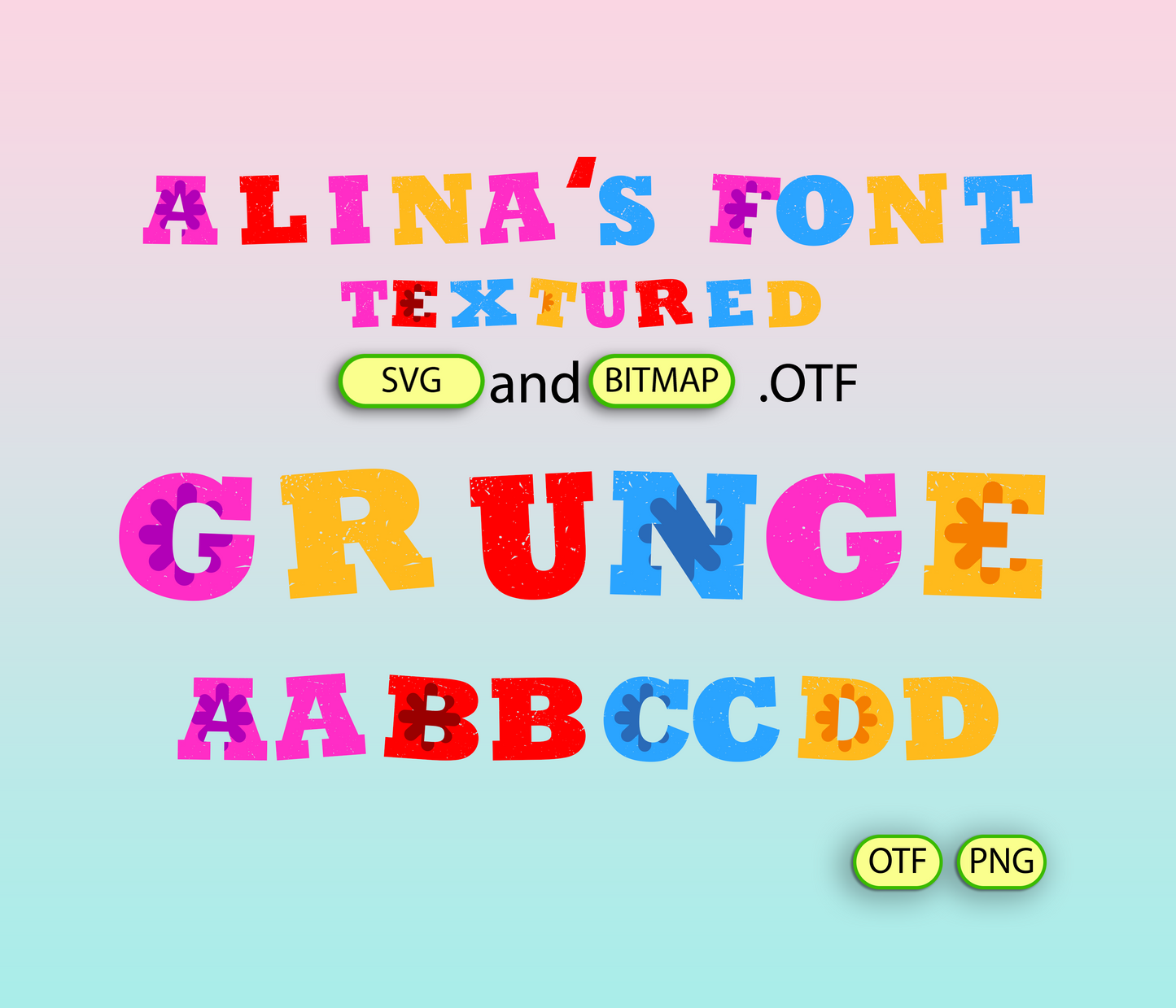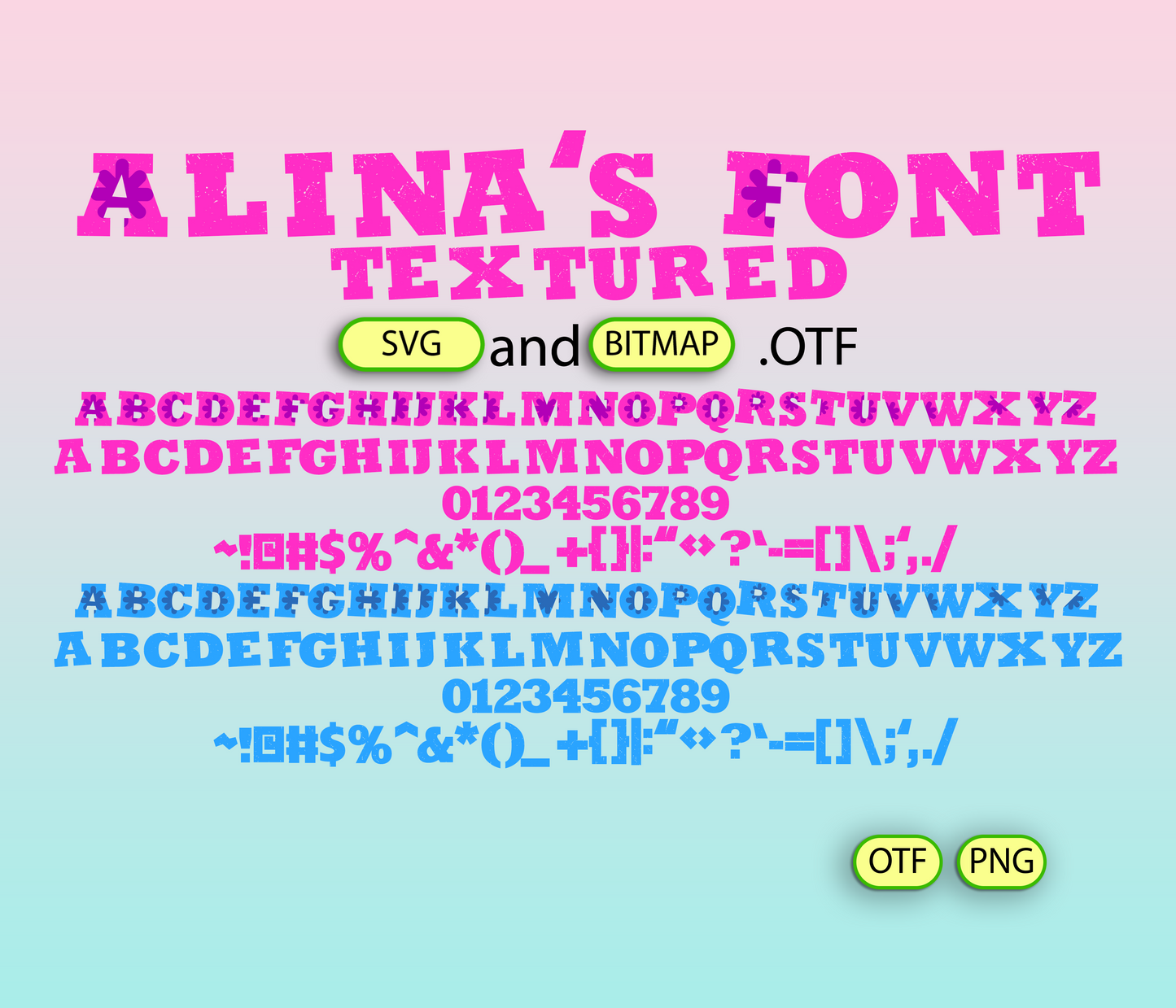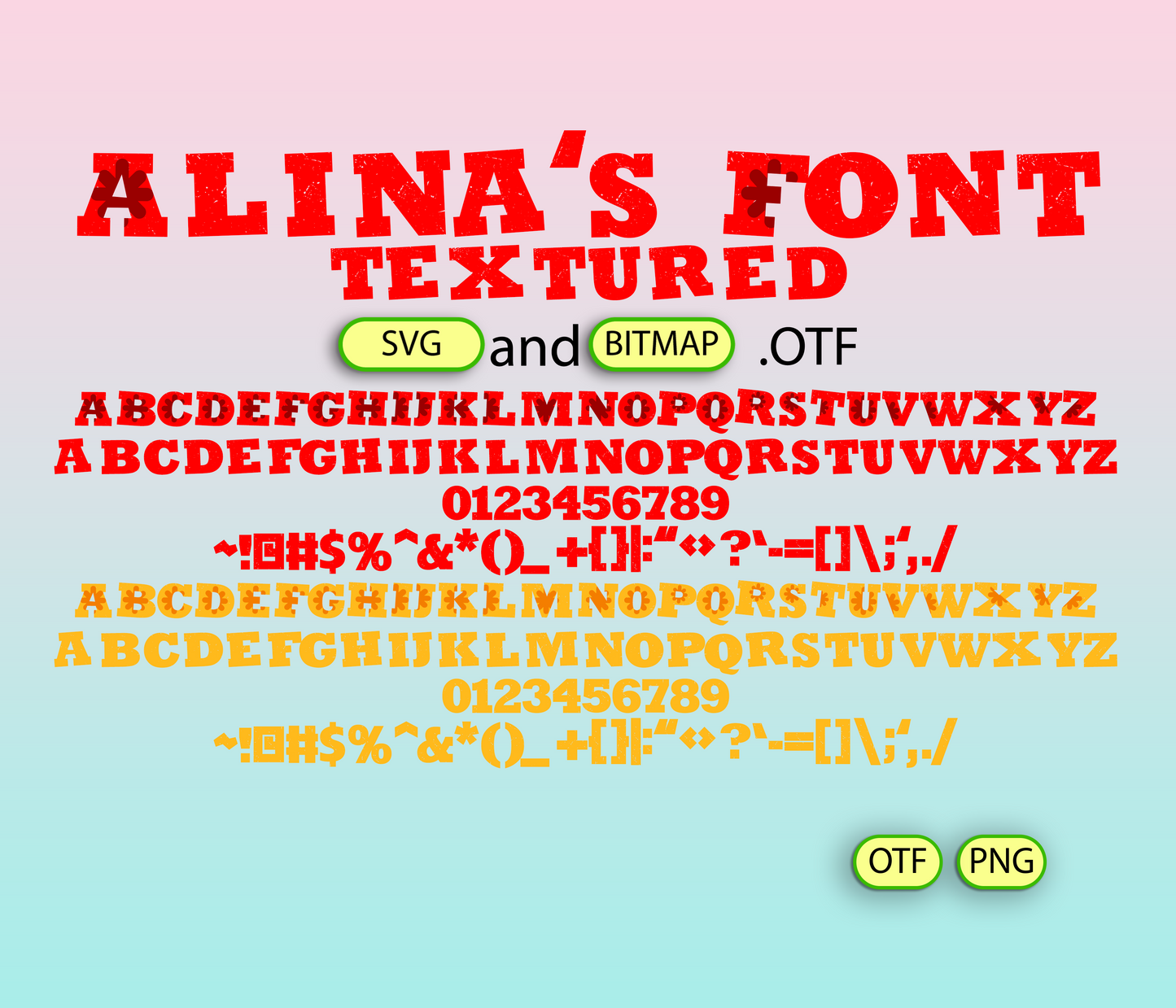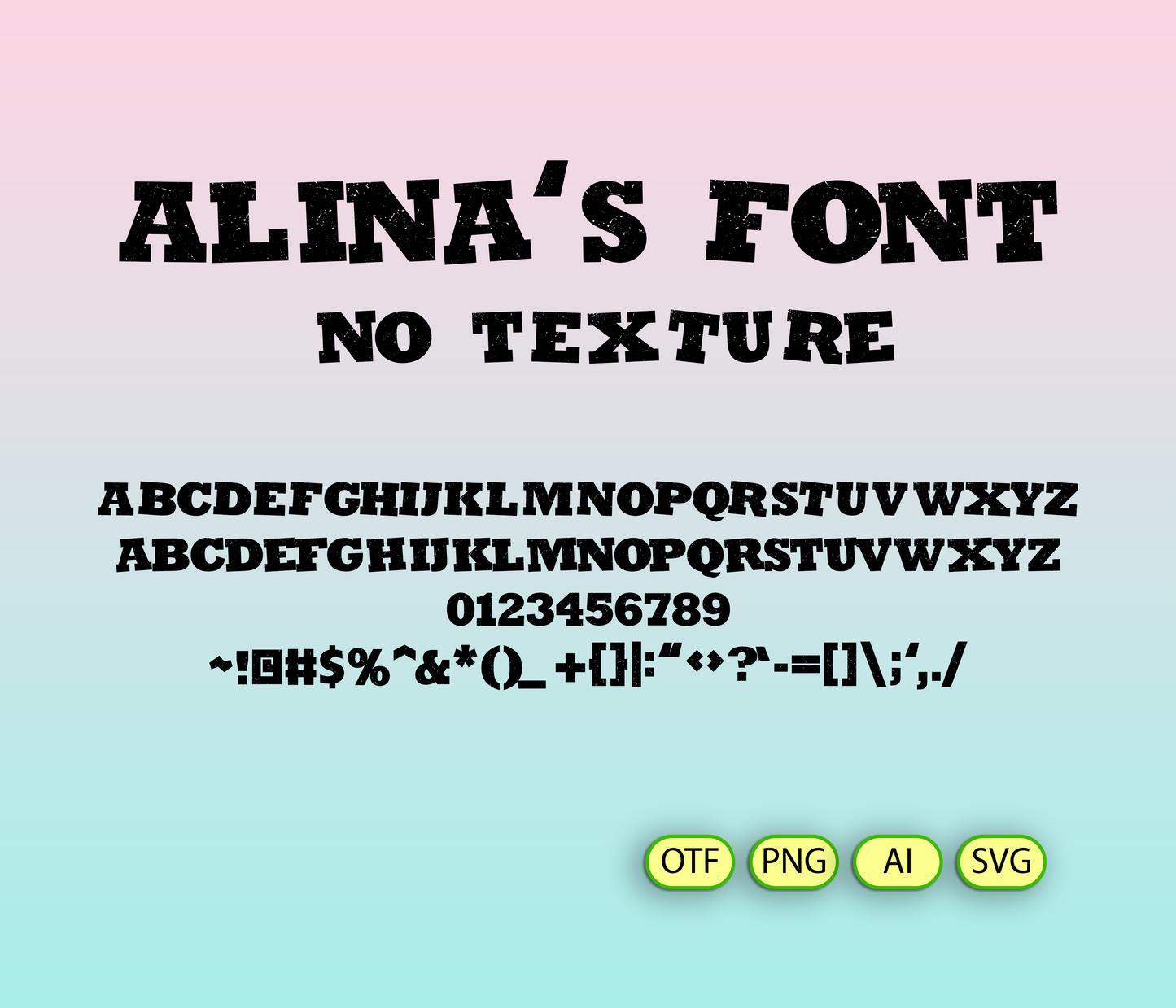
Festive Spirit Font Textured Big Bundle
Step into a world of playful creativity with the Festive Spirit Colored Textured Font. Crafted with a touch of whimsy, this unique font mirrors the playful and vibrant essence showcased in a beloved animated tale of cultural celebration. The letters come alive with a hint of random rotation, lending an irregular charm to the text, much like the unpredictable joy of a festive dance.
Every character in this font is a celebration of color and texture, embodying the lively spirit of adventure. The slightly rotated letters add an element of spontaneity, making every word you craft a little party of its own. It's perfect for adding a dash of fun to cake toppers, making birthday invitations pop, or giving apparel designs a whimsical touch.
This isn't just a font; it's a foray into a realm where each letter tells a story, each word is a festival, resonating with heartwarming narratives of family and tradition. The diverse and robust design of the Festive Spirit Colored Textured Font is well-suited for a variety of crafting projects, ready to turn every creative idea into a colorful narrative.
Let your crafts sing, dance, and tell tales with this imaginative font, and let every creation be a carnival of joy. Whether you're designing for a cultural celebration, a lively party, or simply want to add a touch of festive charm to your projects, this font brings the spirit of jubilant animation to life.